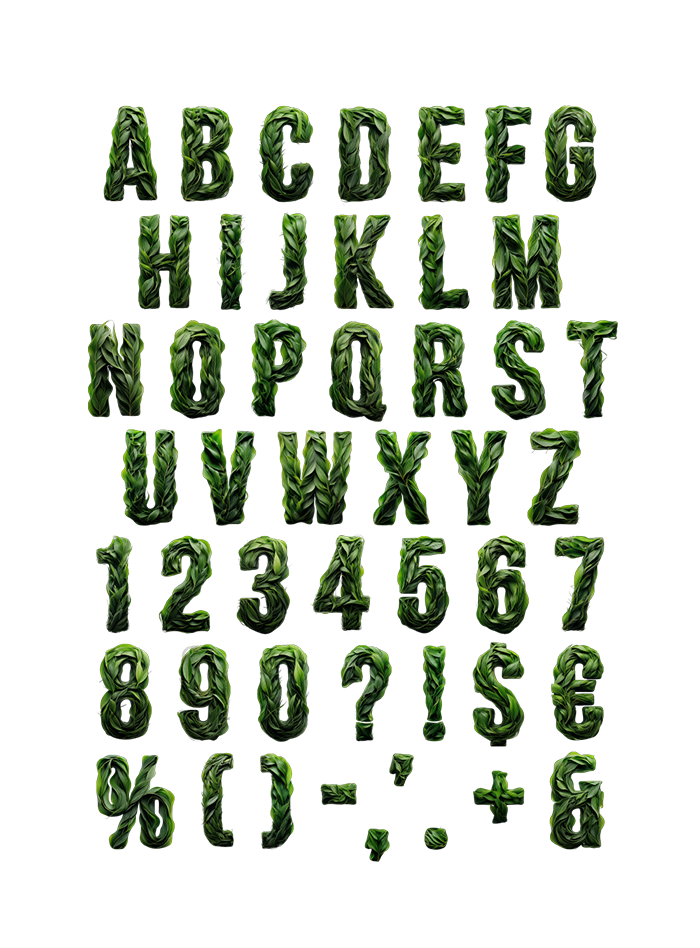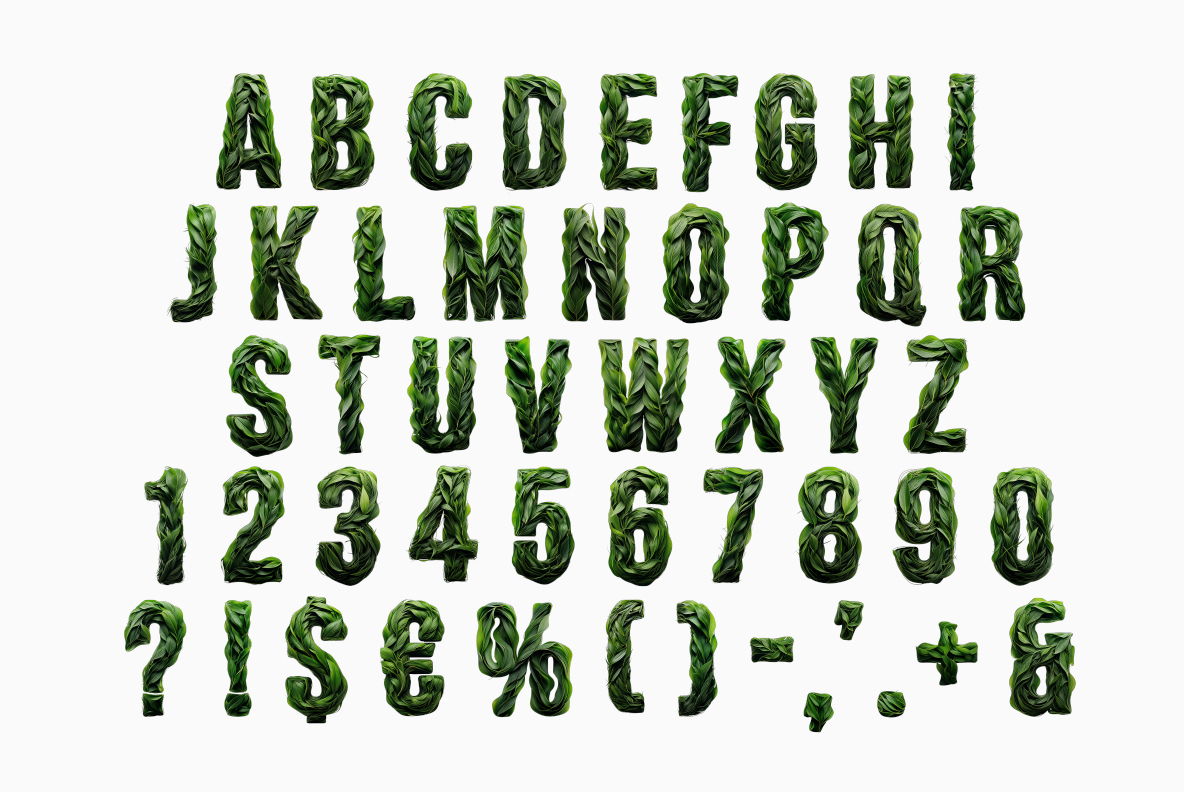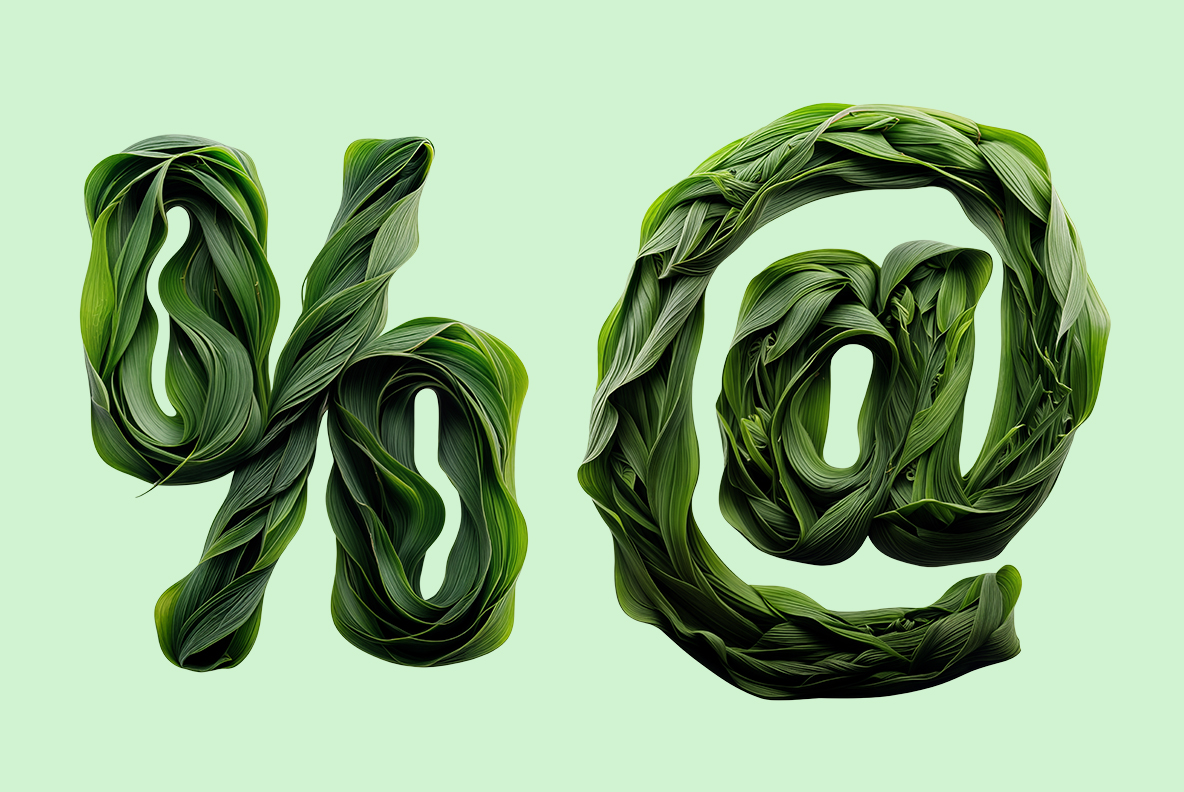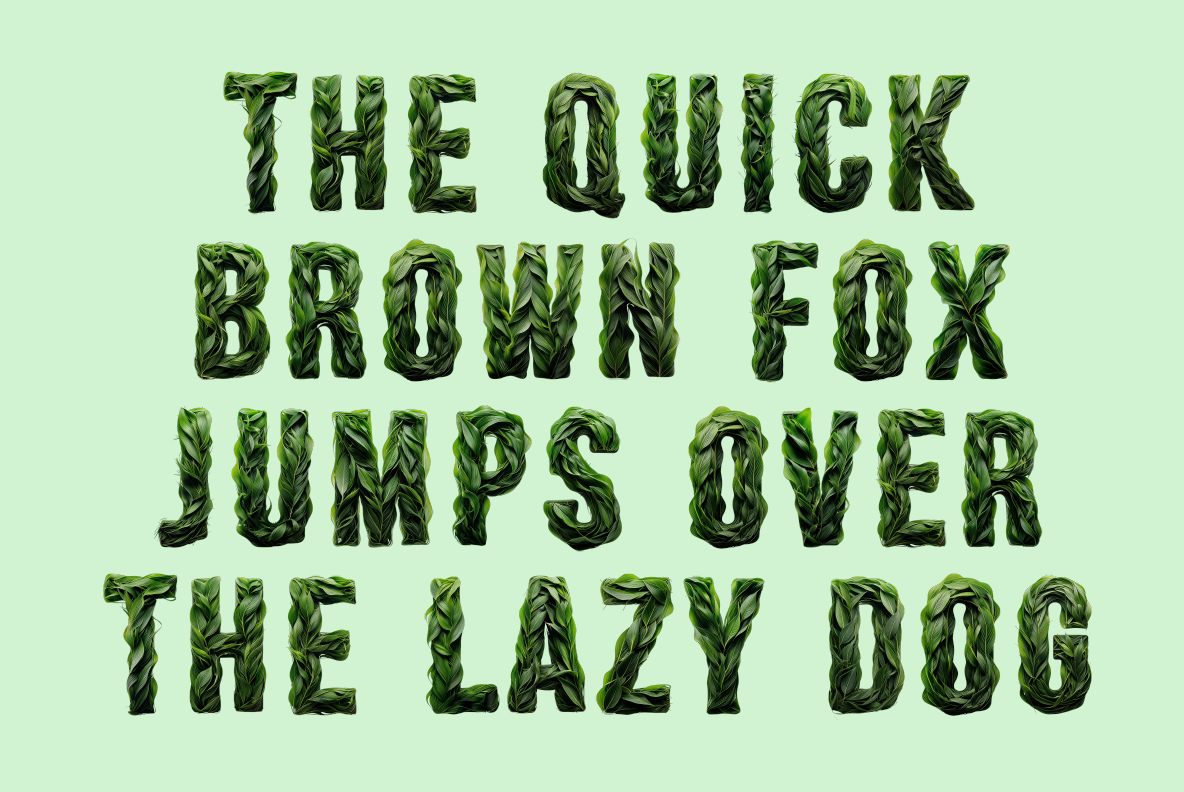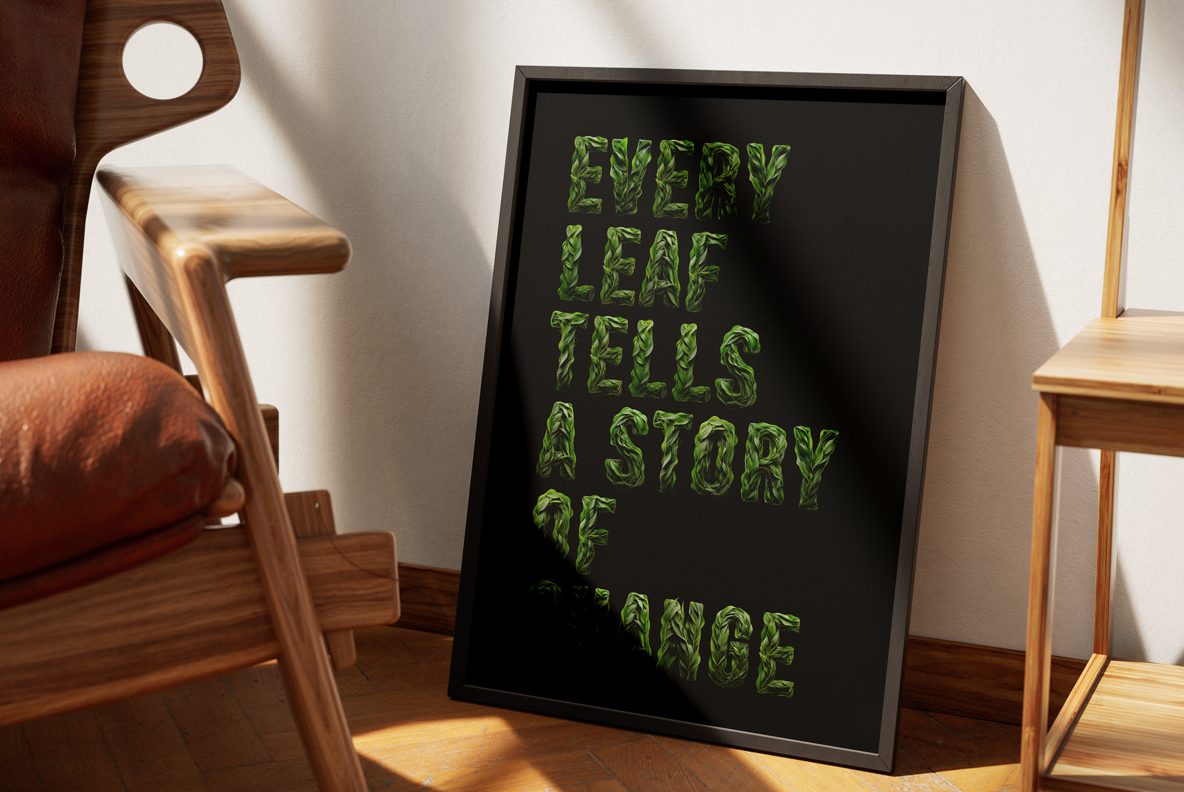
Wildleaf Font – A Leafy Typeface That Grows on You
Wildleaf Font is a bold leaf font and organic typeface that turns text into living design. With OpenType format and PNG letters, it works in Photoshop, Illustrator, Procreate, and more. Perfect for eco-friendly brands, handmade typography, and playful projects, Wildleaf Font adds natural energy to every composition.
Meet Wildleaf Font – The Leaf Font That Thinks Outside the Box
Wildleaf Font is the kind of leaf font that makes other typefaces jealous. Why? Because this leafy, organic typeface doesn’t just display words—it grows them. Forget boring sans-serifs and lifeless scripts. Wildleaf Font is a playful, decorative, and eco font that bursts with natural typography vibes.
This nature font looks like it’s fresh from the garden, curling and twisting into leafy letters that bring your text to life. Perfect as a green font for posters, branding, or packaging, Wildleaf Font is typography that’s alive, bold, and brimming with personality. Discover more handmade fonts here
Nerdy Details for the Tech-Savvy Designer
Of course, beauty isn’t everything. Under the hood, Wildleaf Font is as powerful as it is pretty. This font is a high-resolution OpenType typeface that includes uppercase letters, numbers, and basic punctuation, with each character measuring approximately 800 pixels in height. A full preview of the available letters and glyphs is included for your reference.
This color OpenType font is intended for use in applications that support color bitmap fonts. For optimal performance, programs like Photoshop, Illustrator, and Procreate are recommended. Being in the widely accepted OpenType format, the font is also compatible with other popular software such as InDesign, QuarkXPress, Keynote, PowerPoint, Word, and more. Additionally, each character is provided as a separate PNG file with a transparent background, boasting a high resolution of 4000×4000 pixels. The download package includes individual files—one for each character in this Font set—giving you the flexibility to arrange the letters manually in any graphic design software for fully customized text compositions.
In short: Wildleaf Font is not just a decorative font. It’s a high-end design tool built for modern creatives.
Why Designers Love This Organic Typeface
Need a creative display font for your eco-friendly brand? Looking for a leafy typeface that pairs perfectly with sustainable packaging? Wildleaf Font has you covered. It shines on posters, social media graphics, branding campaigns, and anything else that needs a fresh botanical touch.
And here’s the best part: those PNG letters give you ultimate flexibility. Drop them into Photoshop, Illustrator, or Procreate and arrange them however you like. Stack them, overlap them, rotate them. Wildleaf Font lets you play like a true design gardener, turning every project into natural typography art.
Go Green with Wildleaf Font
Fonts are often invisible tools, but Wildleaf Font refuses to fade into the background. It’s an artistic font, a modern display font, and an eco font all at once. With its leafy charm, it makes your designs memorable and helps your words stand tall in a crowded world of sameness.
So if you’re ready to ditch dull text and embrace the wild, Wildleaf Font is here to help. Try it out, let your designs photosynthesize, and watch your creativity grow. Learn more about Handmadefont’s creative process here.